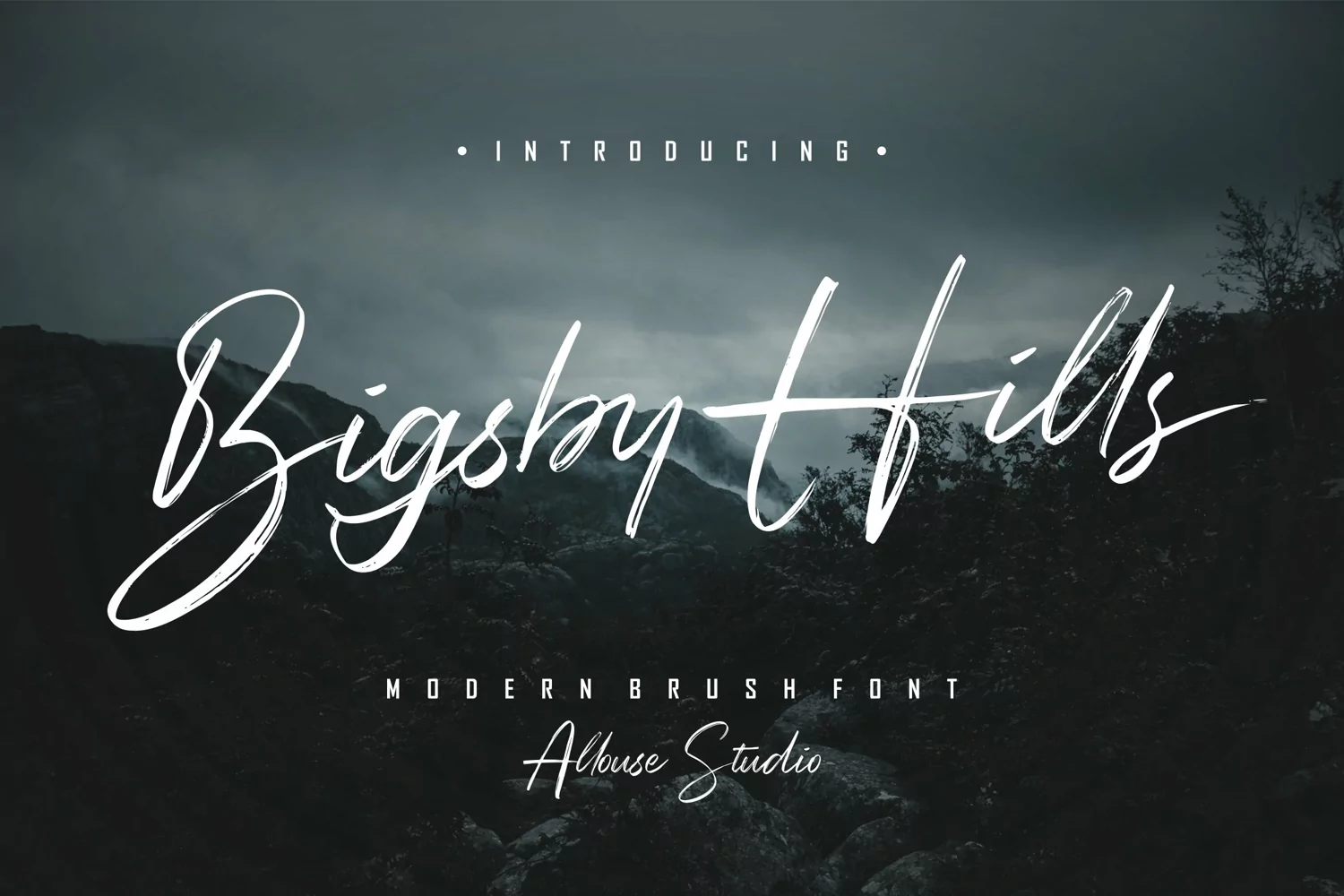
Bigsby Hills
Proudly Present, Bigsby Hills.
Bigsby Hills is Modern Brush Font.
Bigsby Hills is perfect for product packaging, branding project, megazine, social media, wedding, or just used to express words above the background.